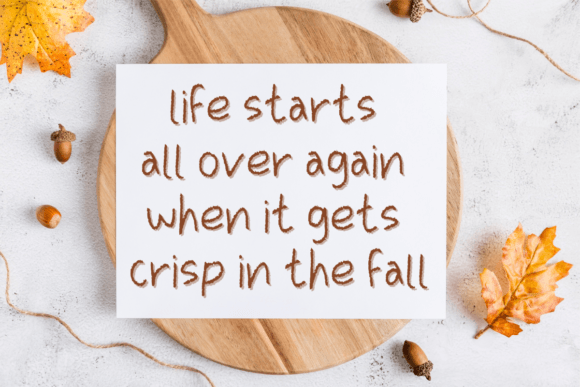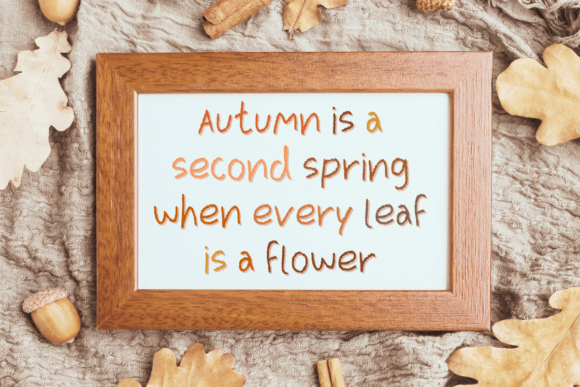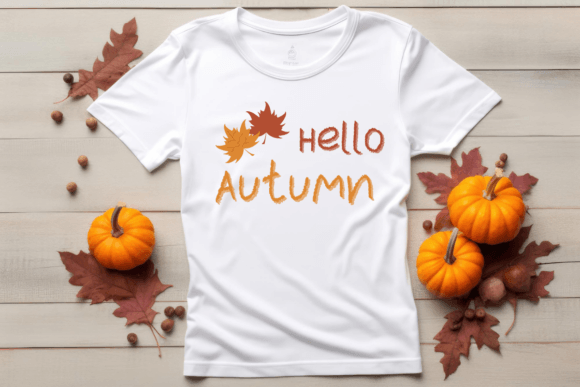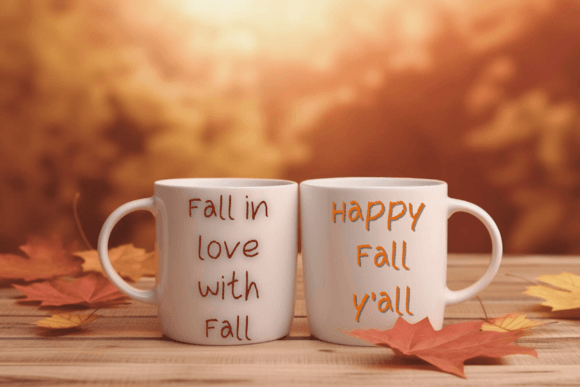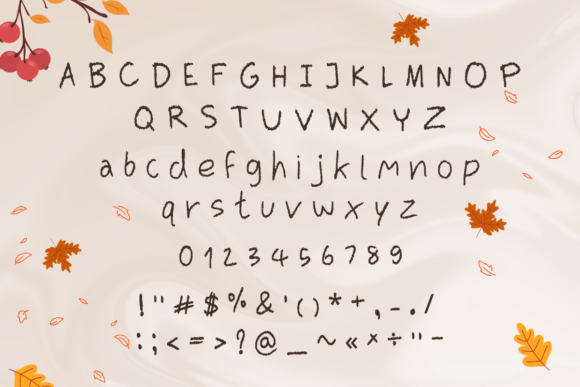
Introducing Autumn Font: A Handwritten Delight with a Youthful Spirit
Are you on the hunt for a font that exudes a carefree and bohemian vibe? Look no further than Autumn Font, a beautiful handwritten font that’s perfect for designers and crafters alike. With its youthful spirit and hand-drawn charm, this font is sure to add a touch of personality to any project.
The Boho Feel of Autumn Font
Autumn Font boasts a distinctly bohemian feel that’s perfect for creating posters, magazine covers, logos, wall art, and more. Its hand-drawn nature gives it a unique, organic look that’s sure to stand out in a crowd. Whether you’re designing for a client or working on a personal project, this font is sure to bring a touch of whimsy and charm to your work.
What Makes Autumn Font So Versatile?
One of the things that sets Autumn Font apart is its incredible versatility. Its handwritten nature makes it perfect for a wide range of applications, from:
• Posters and flyers: Add a touch of personality to your promotional materials with this unique font.
• Magazine covers: Make your magazine stand out on the newsstand with a bold, eye-catching title.
• Logo design: Create a memorable brand identity with a custom logo that showcases your personality.
• Wall art: Add a touch of handmade charm to your wall art and prints.
• And more: Autumn Font is perfect for any project that needs a dash of personality and whimsy.
Why Designers and Crafters Love Autumn Font
So why do designers and crafters love Autumn Font so much? Here are just a few reasons:
• Unique and eye-catching: This font is sure to turn heads with its unique, hand-drawn look.
• Easy to read: Despite its whimsical nature, Autumn Font is incredibly easy to read, making it perfect for body text and headlines.
• Highly versatile: Use it for everything from posters to logo design to wall art.
• Supports a wide range of languages: Whether you’re designing for a global audience or working on a personal project, Autumn Font has got you covered.
How to Use Autumn Font in Your Designs
Ready to get started with Autumn Font? Here are a few tips for incorporating it into your designs:
• Pair it with bold colors: Autumn Font looks amazing paired with bold, bright colors that really make it pop.
• Experiment with textures: Add some extra depth and interest to your designs by experimenting with different textures and patterns.
• Play with font sizes: Don’t be afraid to experiment with different font sizes to create visual interest and hierarchy in your designs.
Autumn Font is a beautiful, handwritten font that’s perfect for designers and crafters looking to add a touch of personality to their work. With its bohemian vibe, versatility, and ease of use, it’s no wonder that this font is quickly becoming a favorite among creatives. So why wait? Download Autumn Font today and start adding a touch of whimsy to your designs!